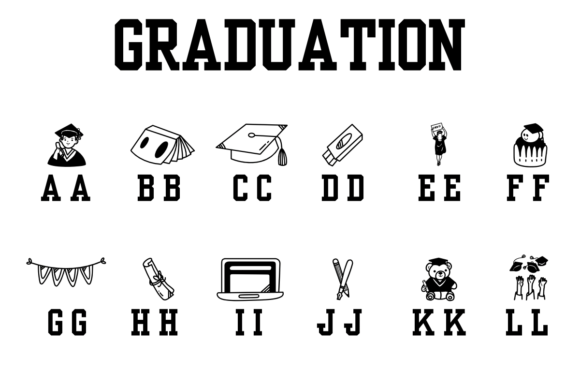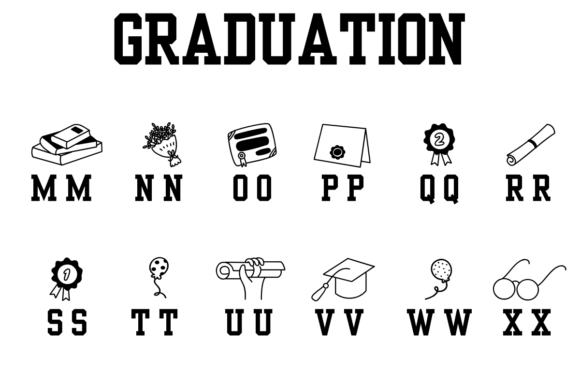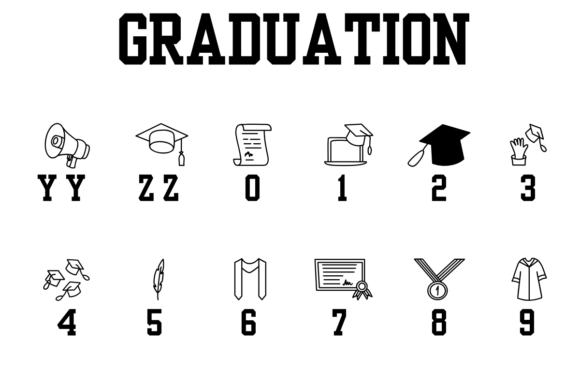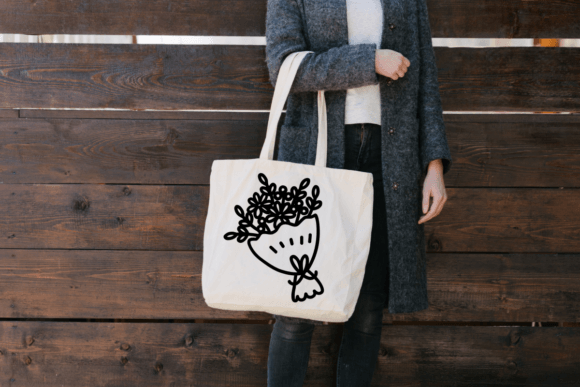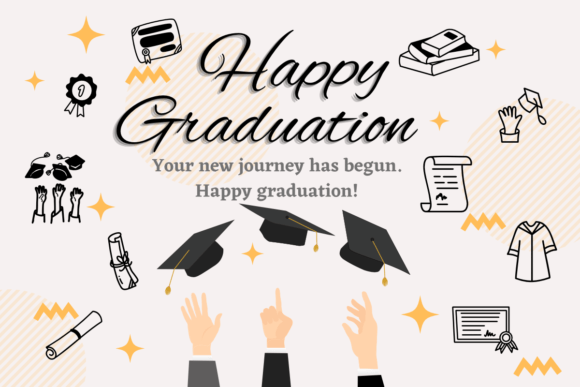
Celebrate Your Graduation with the Perfect Font: A Comprehensive Guide to Graduation Dingbat Font
I’ll never forget the time I was working on a graduation invitation project for a client, and I just couldn’t find the right font to match the celebratory tone. The client wanted something fun, yet elegant, and I was determined to deliver. That’s when I stumbled upon the Graduation Dingbat Font, and it was love at first sight! 🎉 With its adorable graduation-themed symbols like caps, diplomas, and more, I knew I had found the perfect fit.
- 🎉 Fun and whimsical graduation-themed symbols that add a touch of personality to any design
- ✅ Easy to use and navigate, even for those new to dingbat fonts
- 📚 Perfect for a variety of projects, from graduation invitations and cards to scrapbook pages and more
- 🤔 Limited character set compared to other fonts, but that’s to be expected with a dingbat font
- ⚠️ May not be suitable for formal or traditional designs, as it’s quite playful
The Designer Inspiration Behind Graduation Dingbat Font
The Graduation Dingbat Font was designed with the intention of capturing the excitement and joy of graduation day. The designer, inspired by the countless hours spent creating custom graduation invitations and decorations, set out to create a font that would make the process easier and more fun. With its adorable graduation-themed symbols, this font is sure to bring a smile to anyone’s face.
Q: What type of projects is Graduation Dingbat Font best suited for?
A: Graduation Dingbat Font is perfect for graduation invitations, cards, scrapbook pages, and other celebratory designs.